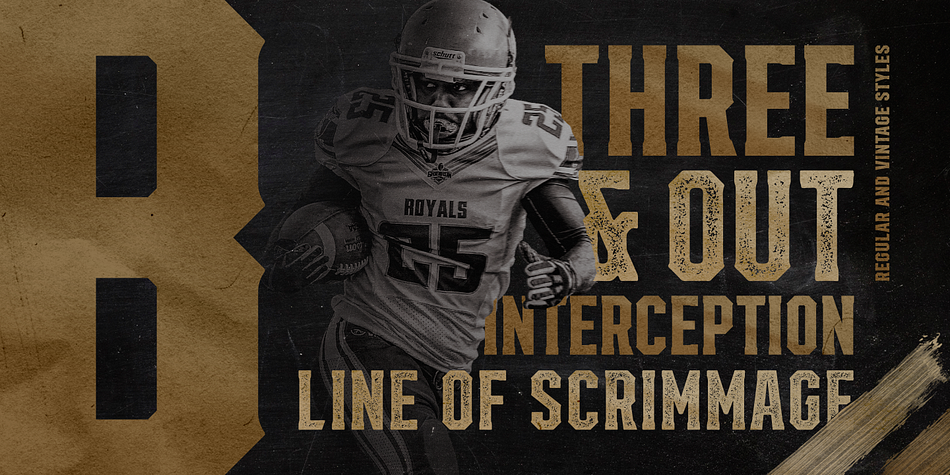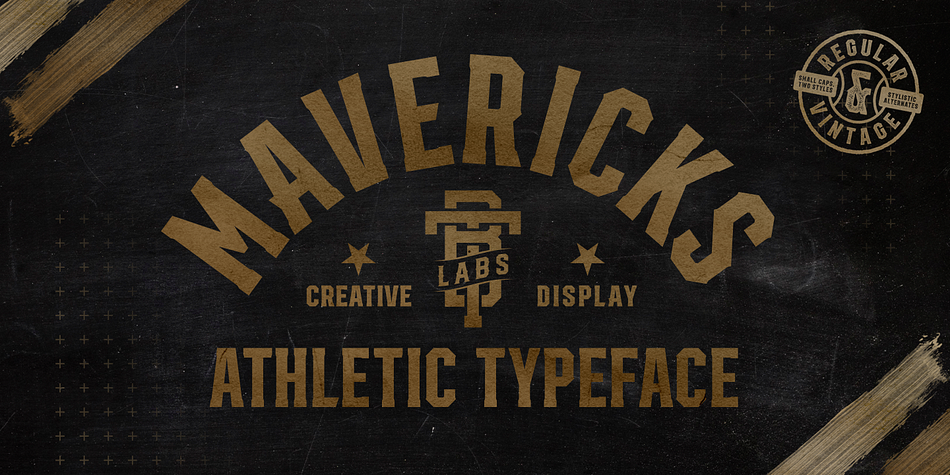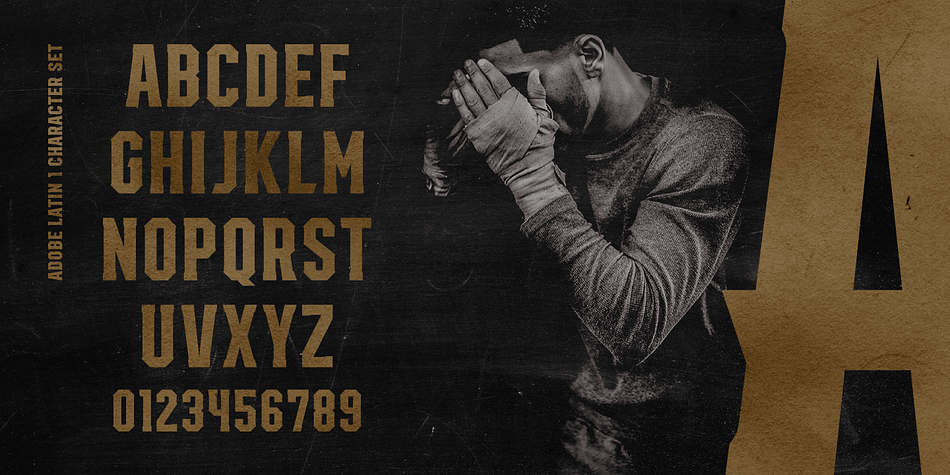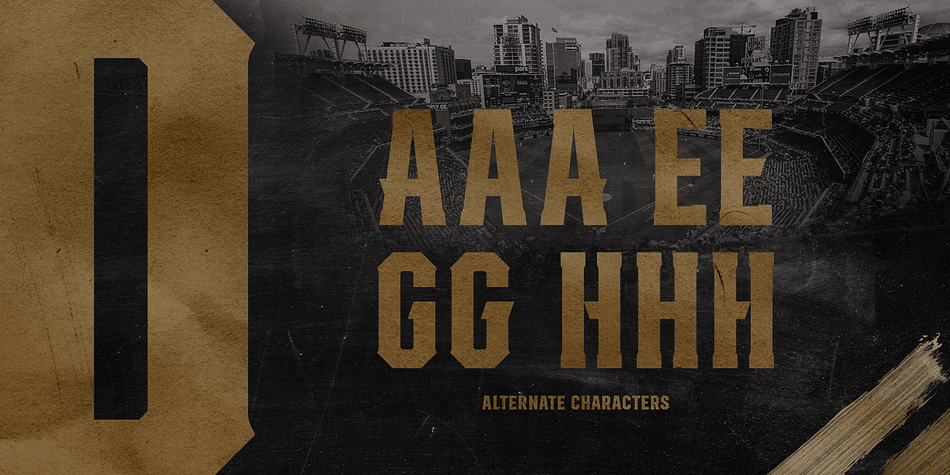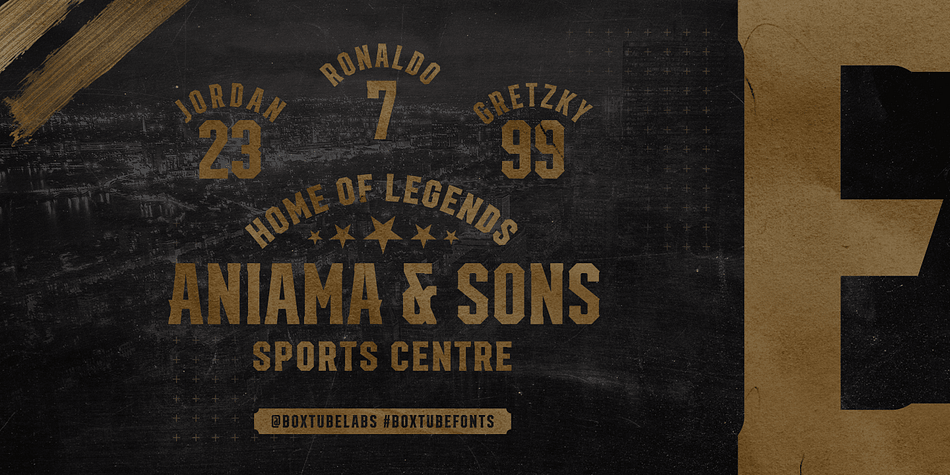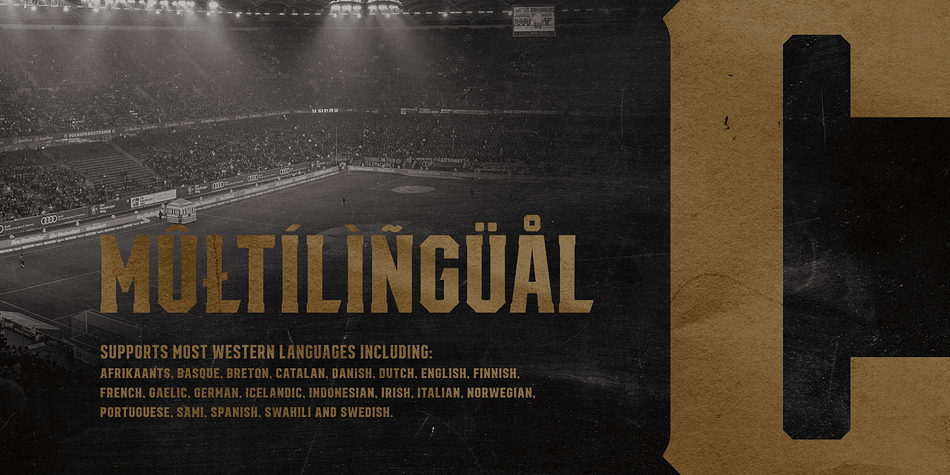
Mavericks
Mavericks is a display and display slab font family. This typeface has two styles and was published by BoxTube Labs.
Maverick, noun, /ˈmæv.ɚ.ɪk/ a person who thinks and acts in an independent way, often behaving differently from the expected or usual way.
Mavericks is a condensed small caps serif with focus on strength and power. It comes in two styles, Regular & Vintage, and features a fair amount of alternate characters to make each design a little more unique. It’s perfect for logotypes, sports branding, posters, apparel design, magazine headlines, labels and so much more.
Mavericks comes with a complete Adobe Latin 1 character set including diacritics and punctuation, with support for most western languages including: Afrikaants, Basque, Breton, Catalan, Danish, Dutch, English, Finnish, French, Gaelic, German, Icelandic, Indonesian, Irish, Italian, Norwegian, Portuguese, Sami, Spanish, Swahili and Swedish.